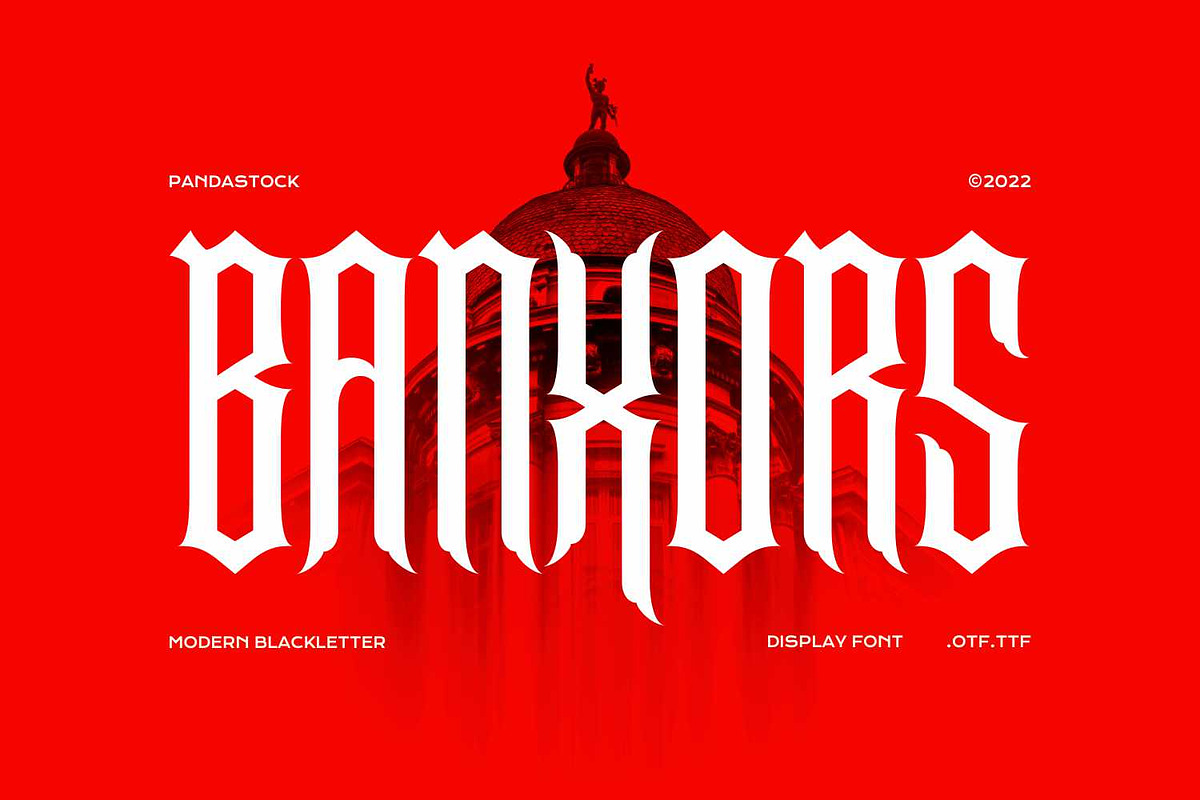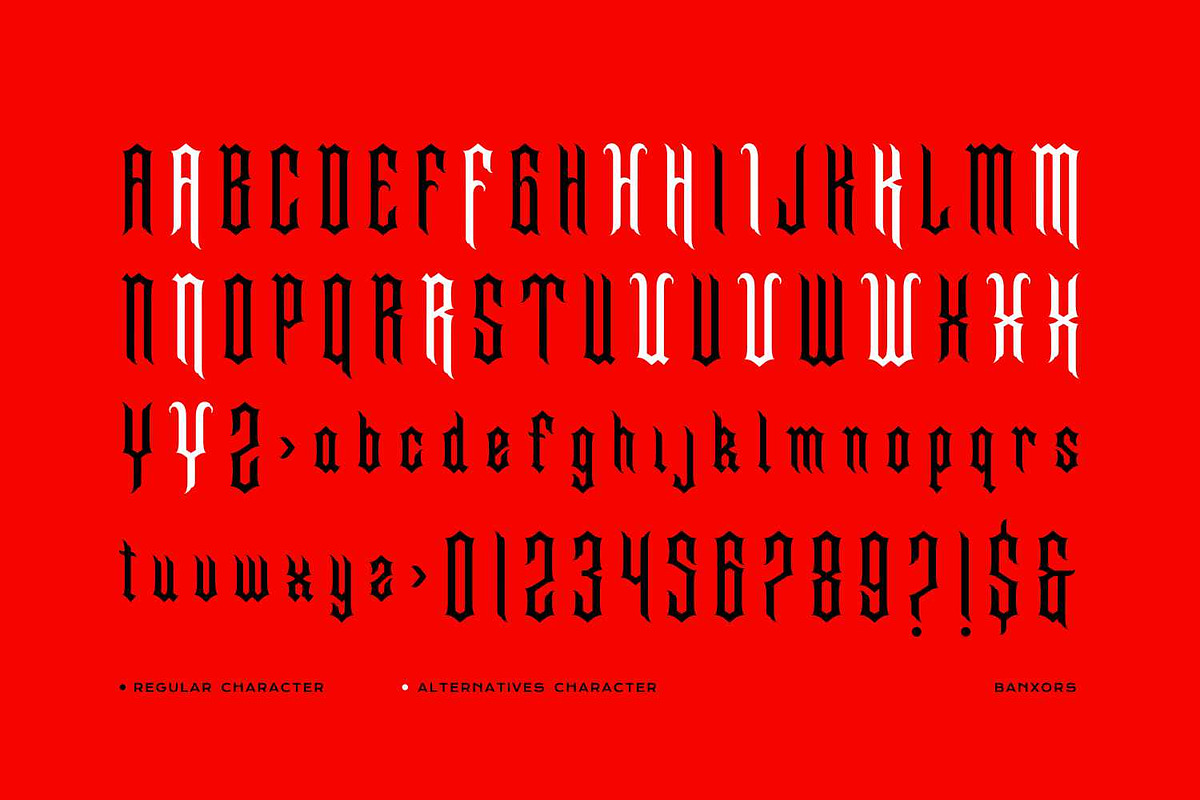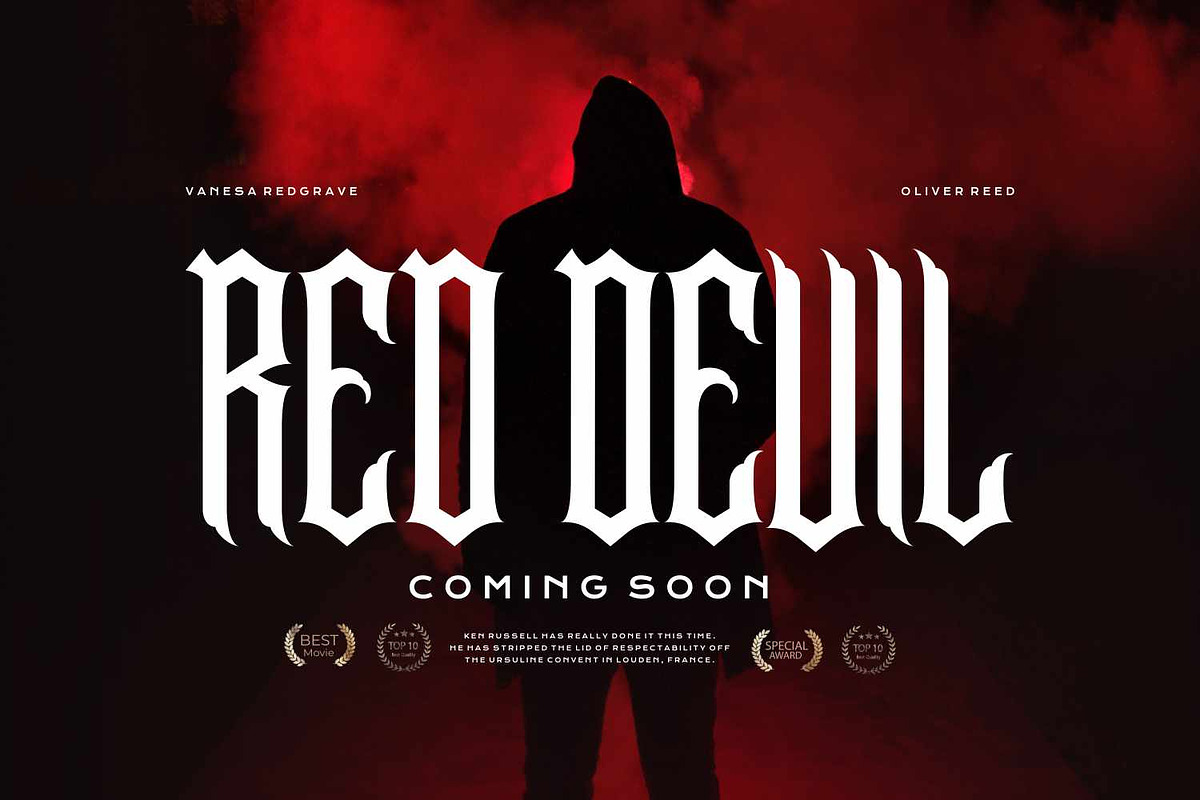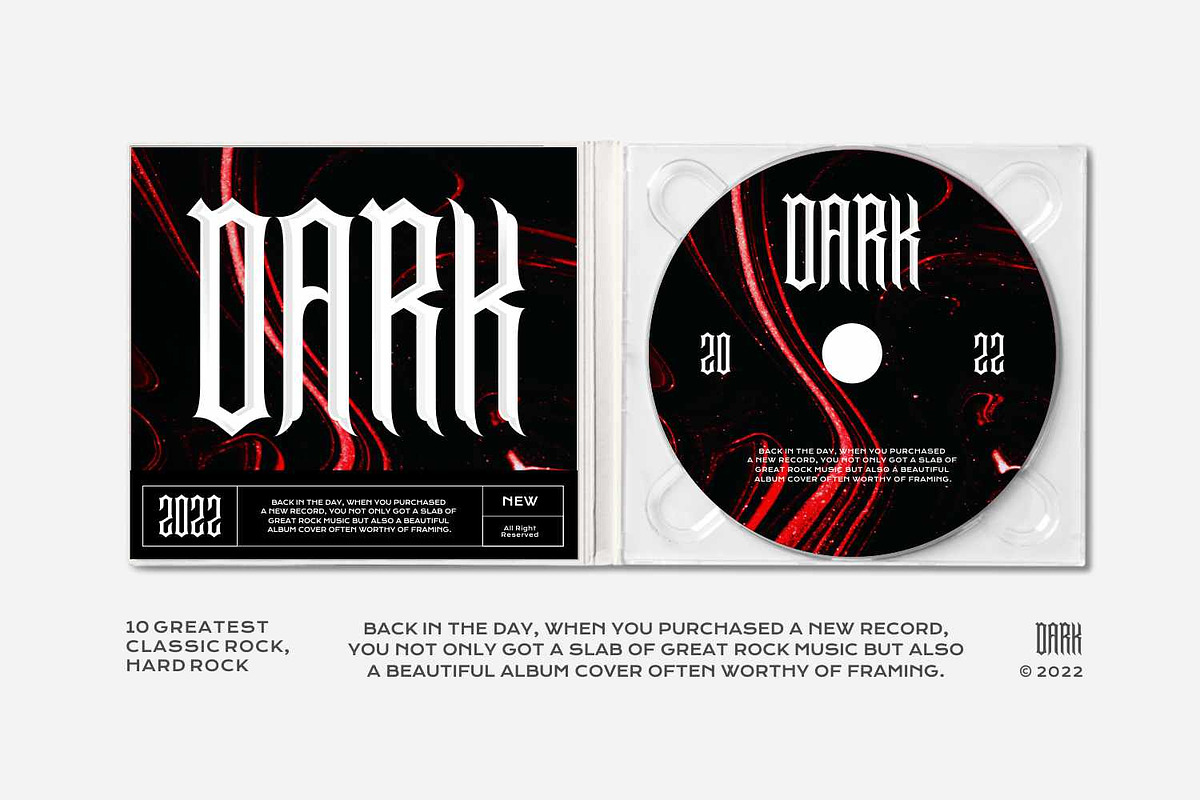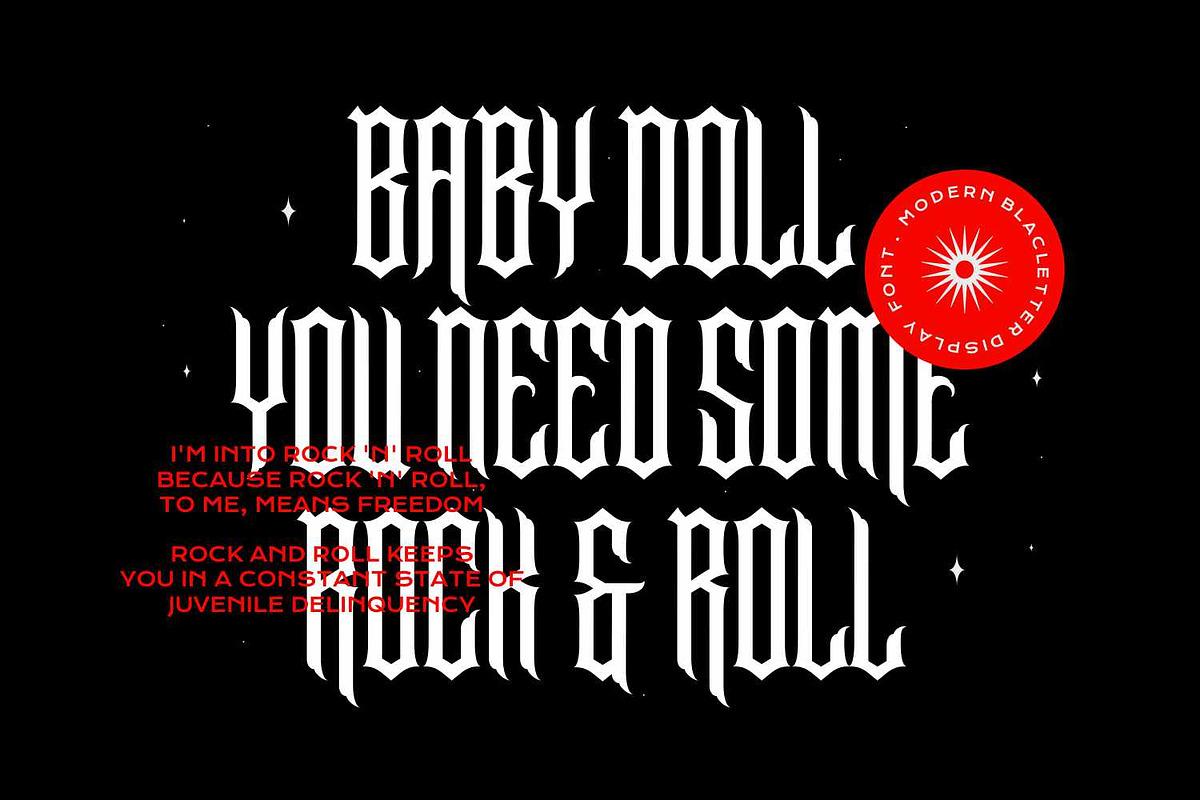
Banxors - Modern Blackletter
Banxors is a black metal font and intimidating typeface inspired by the dark and intense aesthetics of the death metal music genre. Featuring sharp, angular letterforms with jagged edges, this font emanates a strong sense of aggression and power.
Each character is carefully designed to convey brutality and raw energy, making it ideal for album covers, posters, metal band logos, merchandise, clothing, apparel, branding or anything else that calls for a metal feel.